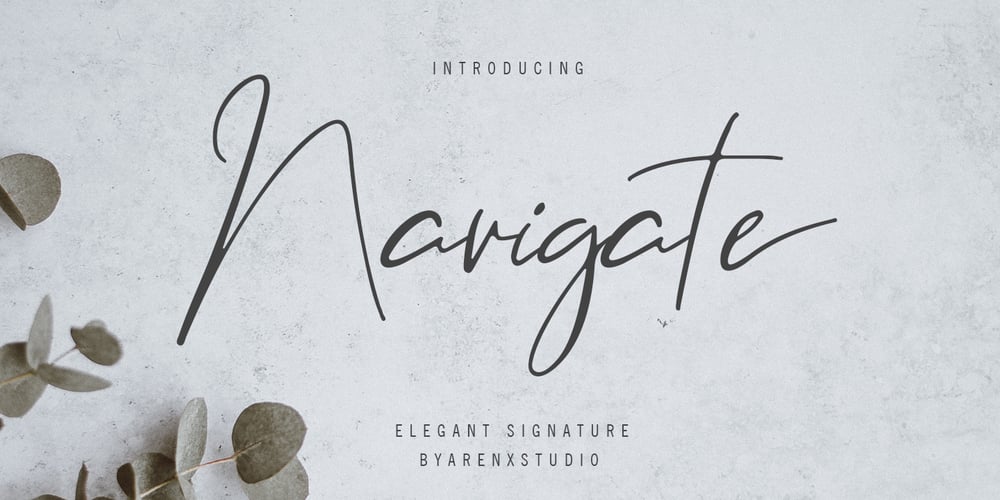
Navigate
Navigate font
Navigate Font Family was designed by Asep Rendi and published by Arendxstudio. Navigate contains 1 styles and family package options. Navigate is an elegant hand made with brush script and is perfect for wedding card designs, logotype, website headers, fashion design and much more.